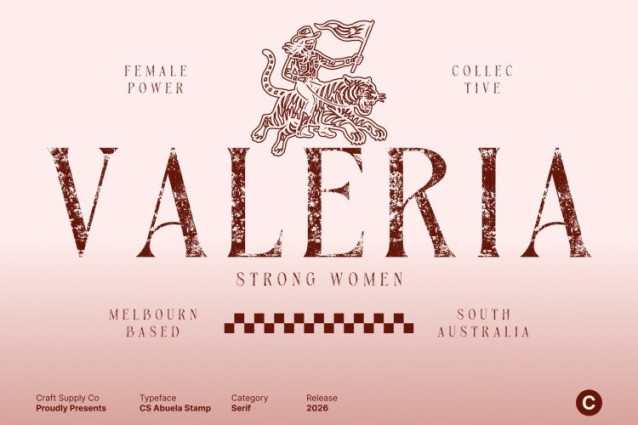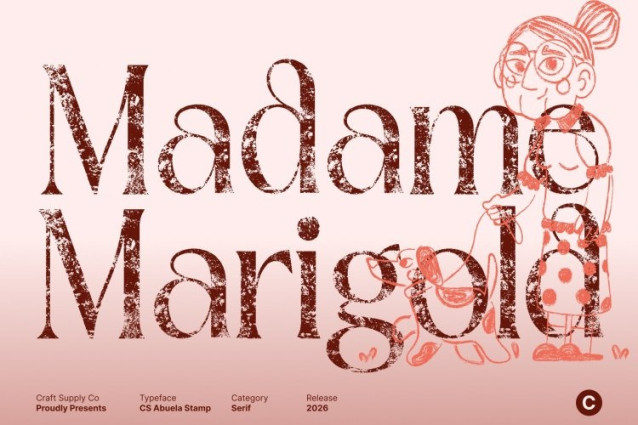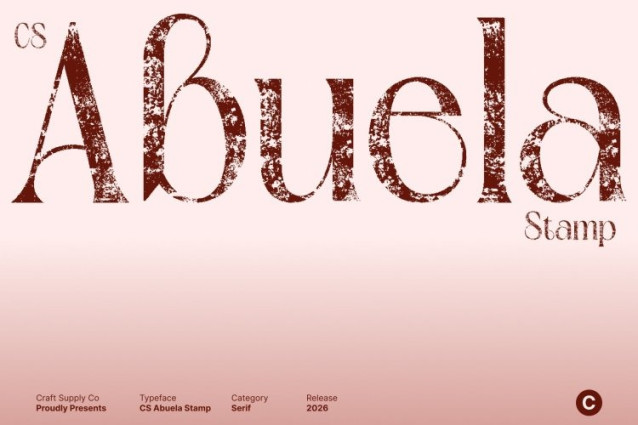
CS Abuela Stamp Font
CS Abuela Stamp Font This is a modern display serif font inspired by the graceful artistry of Art Nouveau design. Its flowing curves, decorative serifs, and organic proportions create a sophisticated visual language that feels timeless yet expressive. Enhanced with a subtle stamp effect, the letterforms gain depth and character while preserving their elegant refinement.
Artistic Curves with Handcrafted Detail
The beautifully crafted letterforms showcase intricate detailing and ornamental movement, echoing classic Art Nouveau aesthetics. The stamped texture introduces gentle imperfections that add a vintage, handcrafted quality, making each character feel rich in artistry and visual warmth.
Classic Inspiration with Modern Balance
While deeply rooted in historic design influences, this font maintains a clean and balanced structure suited for modern use. This harmony allows the font to feel both nostalgic and contemporary, making it versatile for refined layouts and expressive display typography.
Ideal for Luxury and Artistic Design
Perfect for luxury branding, high-end invitations, editorial layouts, logos, and bespoke visual identities, this font elevates designs with timeless elegance. Its blend of artistic curves, modern clarity, and vintage stamped texture makes it an exceptional choice for projects seeking sophistication and lasting visual impact.